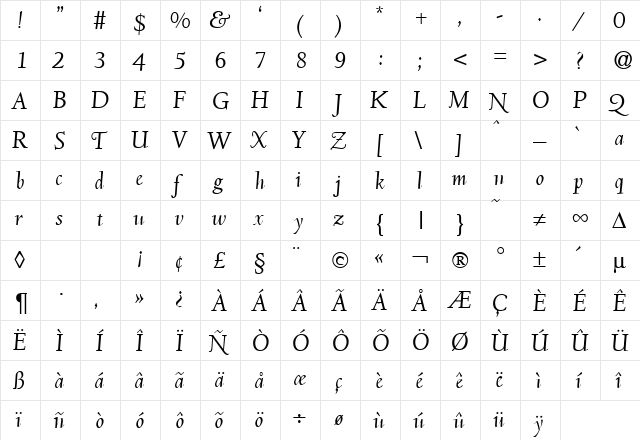
Deemster RegularItalic
Design Context for Deemster Typeface
Deemster is a composed and adaptable typeface that performs quietly and consistently across a wide range of design contexts. Its italic angle brings a sense of urgency and motion to the letterforms.
Pro Tip: Use Deemster for emphasis, pull quotes, and subheadings where its slanted energy can add rhythm to the layout.